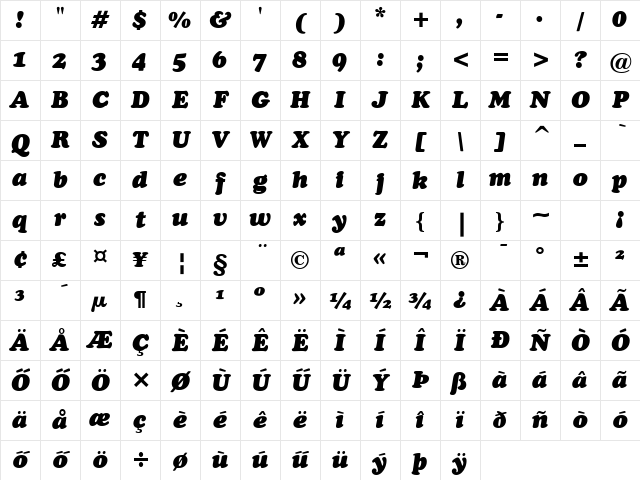
Cooper Black HU Black Italic Headline
Style: Black Italic Headline
Design Context for Cooper Black HU
Cooper Black HU is a composed and adaptable typeface that performs quietly and consistently across a wide range of design contexts. The slanted form adds forward momentum and visual energy.
Pro Tip: Use Cooper Black HU for emphasis, pull quotes, and subheadings where its slanted energy can add rhythm to the layout.